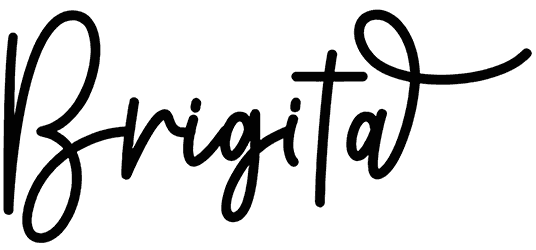
Brigita Font
Let’s see how ravishing your layout will be if you set this beautiful neon font on your words. The letters have a casual and cursive pen-lettering form, and your designs, such as a business card for a journalist, will convey a realistic and casual vibe. The Brigita font can amp up your layout and help you spotlight your innovative talents.